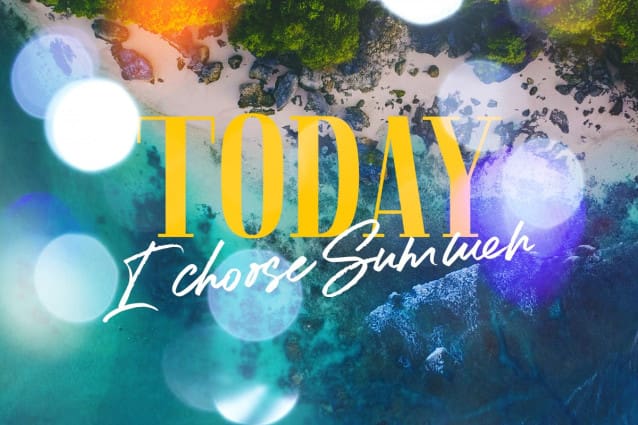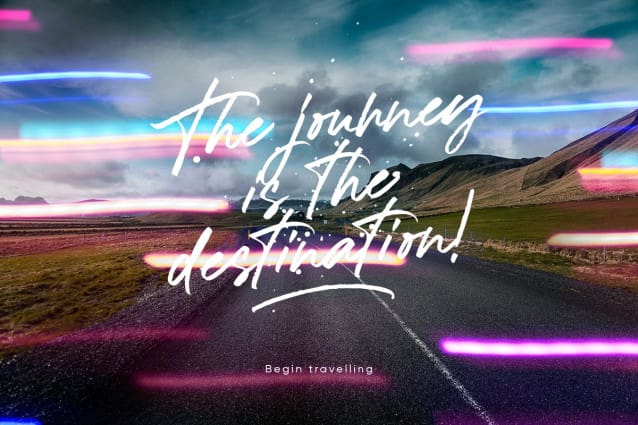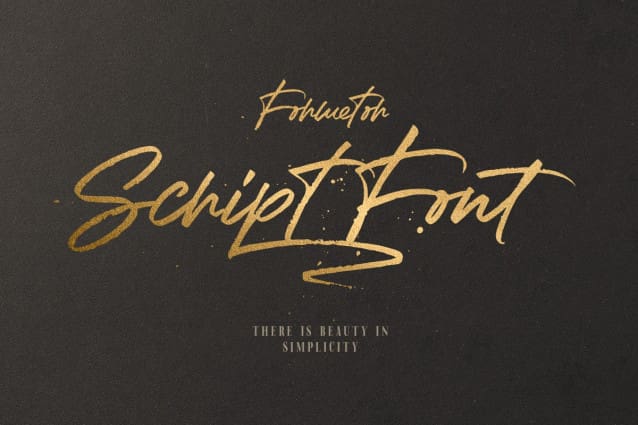
Formetor Script Font! A rustic, dapper handwritten font with a personal charm. With quick dry strokes and a signature style, Formetor is perfect for branding projects, homeware designs, product packaging – or simply as a stylish text overlay to any background image.
You can activate Ligature and Alternates in the OpenType panel to make these two styles. It also has many alternatives and underlines that make your text and design more interesting.